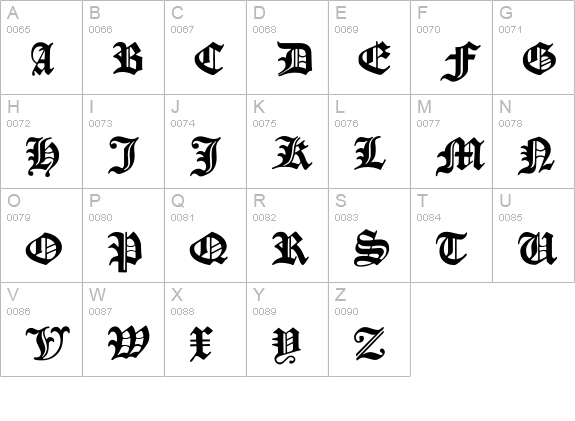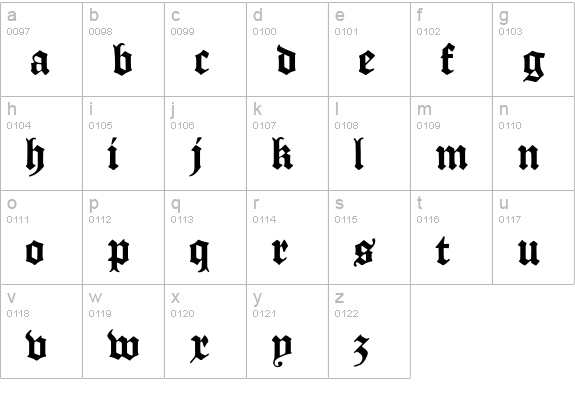
ManuskriptGotisch Font Details
ManuskriptGotisch font is a stunning display font that exudes elegance and sophistication. Its intricate details and bold, Gothic-inspired design make it a perfect choice for creating eye-catching headlines, posters, and signage. With its unique blend of traditional calligraphy and modern typography, ManuskriptGotisch font captures the essence of a bygone era while maintaining a contemporary appeal. What sets ManuskriptGotisch font apart is its versatility. It can effortlessly elevate any design project, whether it's a vintage-inspired wedding invitation, a medieval-themed film poster, or a logo for a gothic fashion brand. The sharp, angular strokes and delicate curves of each letter create a captivating visual impact, adding a touch of drama and mystery to any design. But what makes ManuskriptGotisch font truly remarkable is that it is freely available to download at FontsMarket.com. This means that designers, creatives, and enthusiasts can enjoy the beauty and functionality of this font without any cost. Its availability for free ensures that everyone has access to this extraordinary font, empowering them to bring their creative visions to life without any limitations. Whether you're a professional designer looking for a unique font to enhance your projects or someone who simply appreciates the beauty of typography, ManuskriptGotisch font is a must-have in your font collection. Download it today from FontsMarket.com and unlock the endless possibilities of this remarkable font.